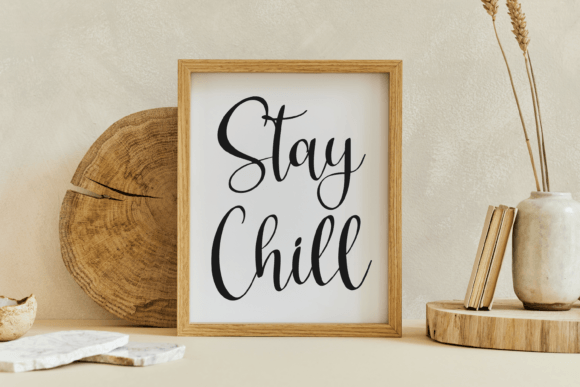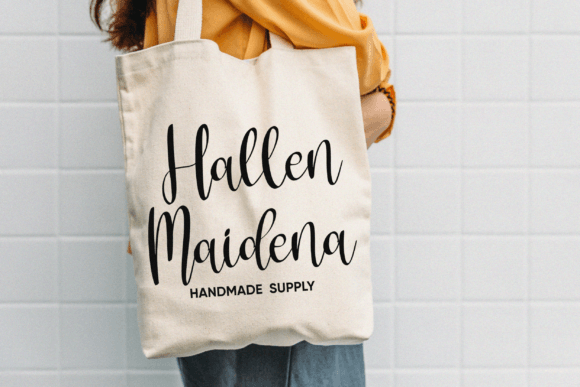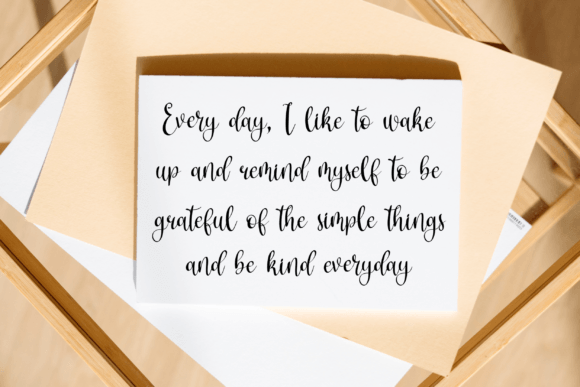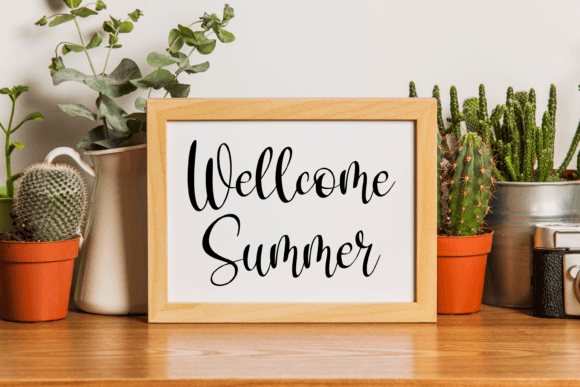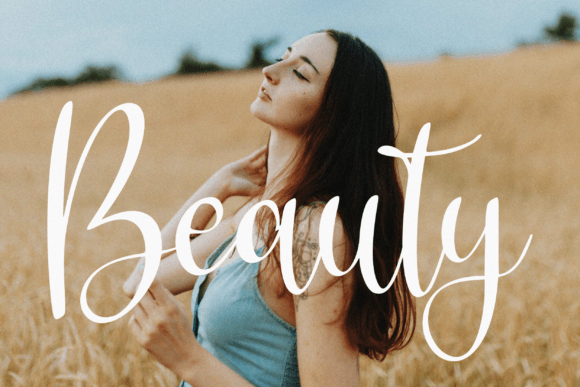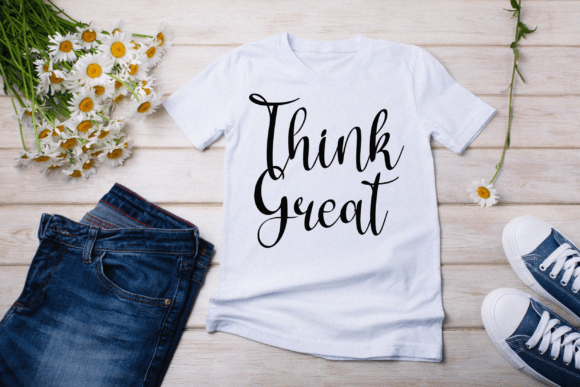
Cristalake Font: Elevate Your Designs with Elegance and Timeless Style
Are you on the hunt for a font that exudes elegance, sophistication, and a touch of timeless charm? Look no further than Cristalake Font, a stunning handwritten typeface that is sure to capture your heart. With its incredibly distinct and beautiful style, Cristalake is the perfect addition to any design project, from crafting and branding to digital and print materials.
The Beauty of Cristalake Font
Cristalake Font is a neat and beautiful handwritten font that boasts an elegant touch, making it an ideal choice for designers and crafters who want to add a touch of sophistication to their work. Its unique and timeless style is sure to set your designs apart from the rest, and its versatility makes it perfect for a wide range of applications.
Whether you’re working on a logo, branding materials, social media graphics, or even a website, Cristalake Font is the perfect choice. Its elegant and refined style will add a touch of luxury to your designs, making them stand out in a crowded digital landscape.
Key Features of Cristalake Font
- Handwritten Elegance: Cristalake Font is a beautiful handwritten typeface that exudes elegance and sophistication.
- Timeless Style: Its unique and timeless style makes it perfect for designers and crafters who want to create designs that stand the test of time.
- Versatility: Cristalake Font is perfect for a wide range of applications, from crafting and branding to digital and print materials.
- Distinctive Character: Its incredibly distinct style makes it perfect for designers who want to add a touch of personality to their work.
Why Choose Cristalake Font?
So, why choose Cristalake Font for your next design project? Here are just a few reasons why this stunning typeface is a cut above the rest:
- Easy to Read: Cristalake Font is incredibly easy to read, making it perfect for body text, headings, and titles.
- Highly Versatile: Its versatility makes it perfect for a wide range of applications, from digital and print materials to crafting and branding.
- Unique Style: Its unique and timeless style makes it perfect for designers who want to create designs that stand out from the rest.
- Elegant Touch: Its elegant touch makes it perfect for designers who want to add a touch of sophistication to their work.
Here are a few tips for using Cristalake Font:
- Pair it with Other Fonts: Cristalake Font pairs perfectly with other fonts, such as sans-serif fonts or script fonts.
- Use it for Headings and Titles: Its elegant and refined style makes it perfect for headings and titles.
- Experiment with Colors: Cristalake Font looks stunning in a variety of colors, from bold and bright to soft and pastel.
In conclusion, Cristalake Font is a stunning handwritten typeface that is sure to capture your heart. With its incredibly distinct and timeless style, it’s the perfect addition to any design project. Its elegance, versatility, and unique character make it perfect for designers and crafters who want to create designs that stand out from the rest.